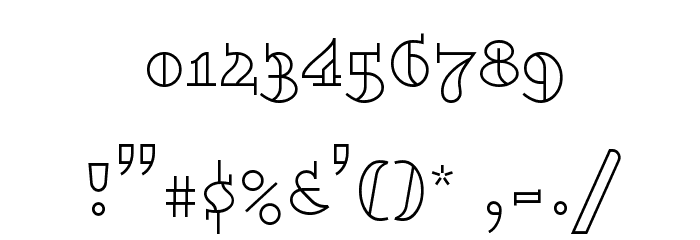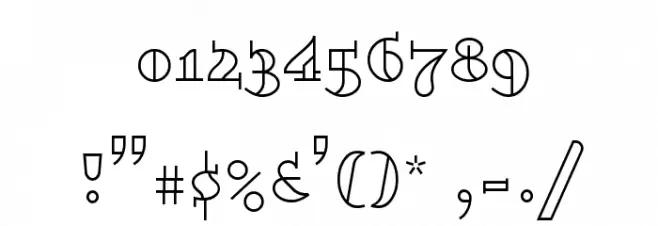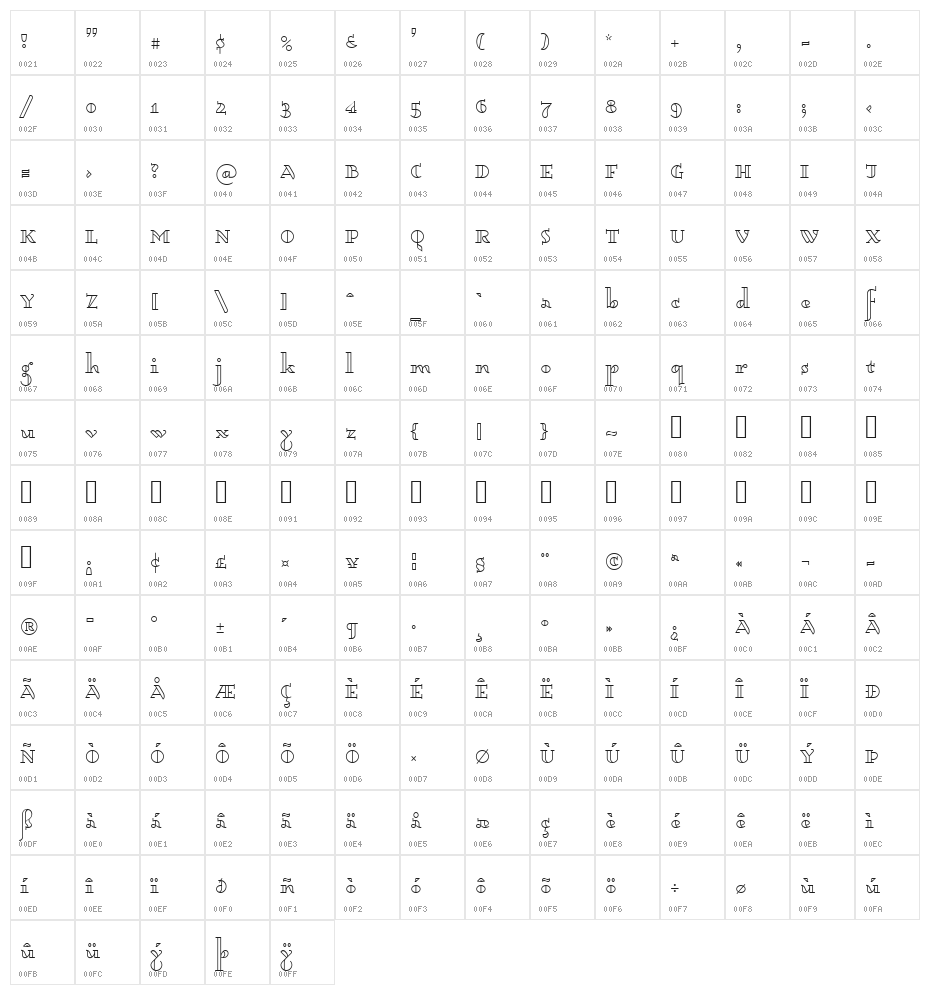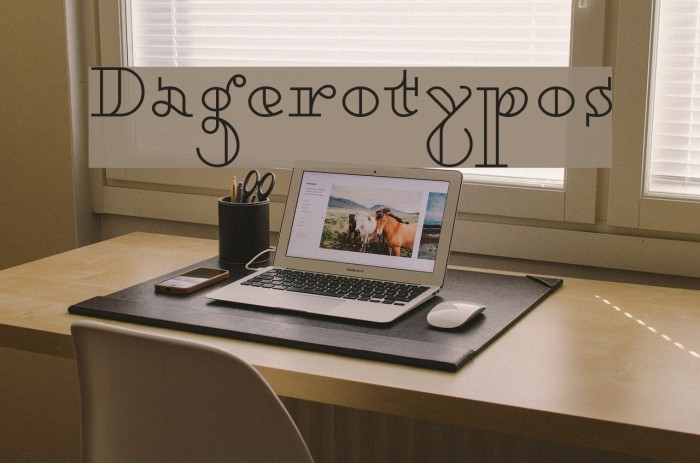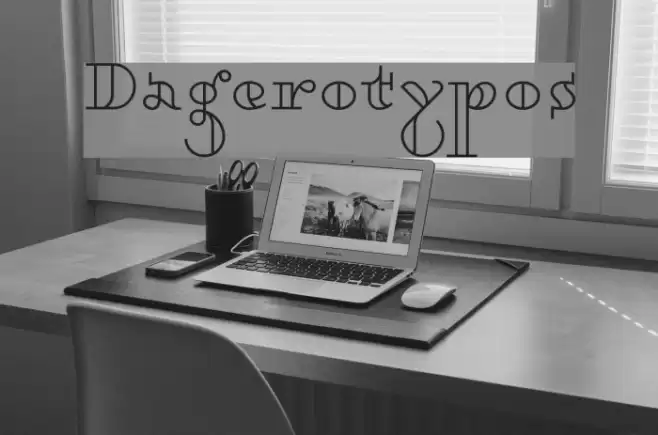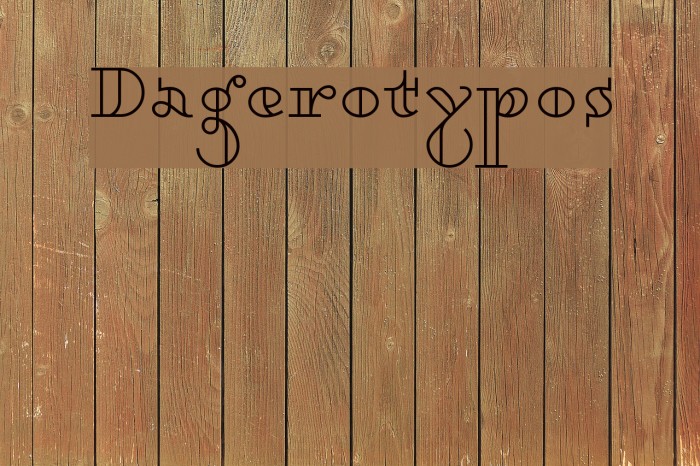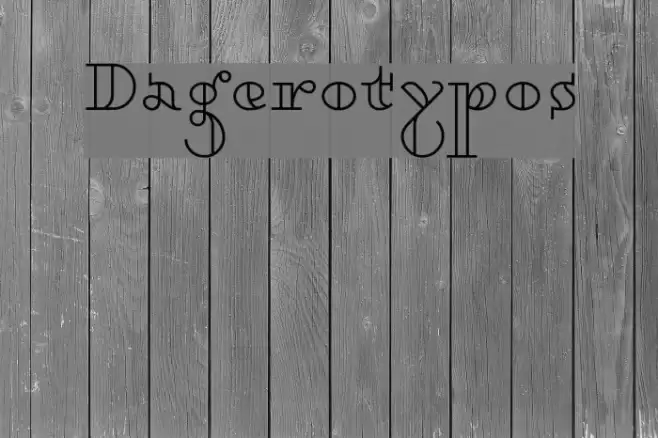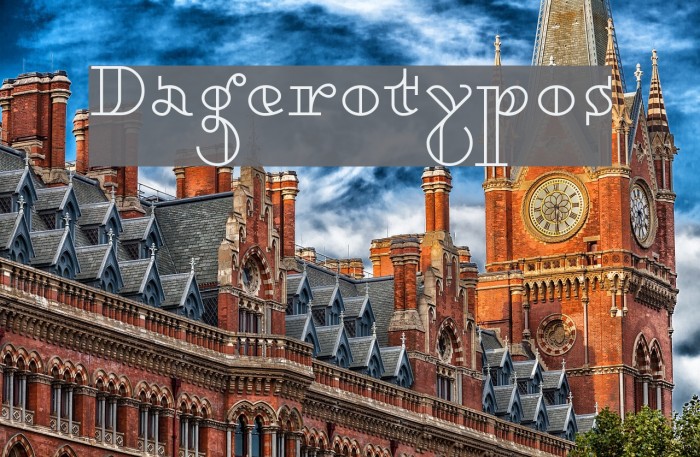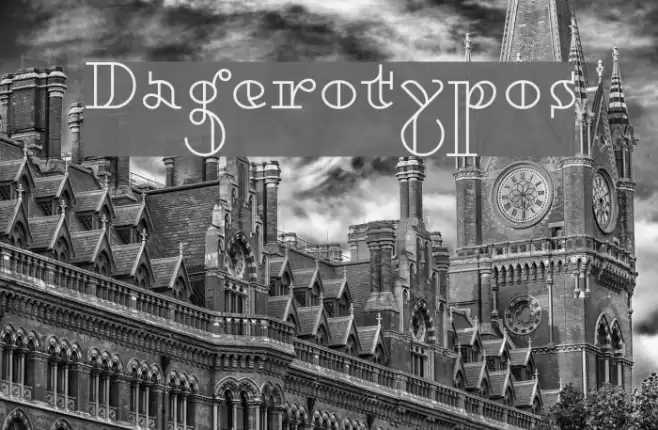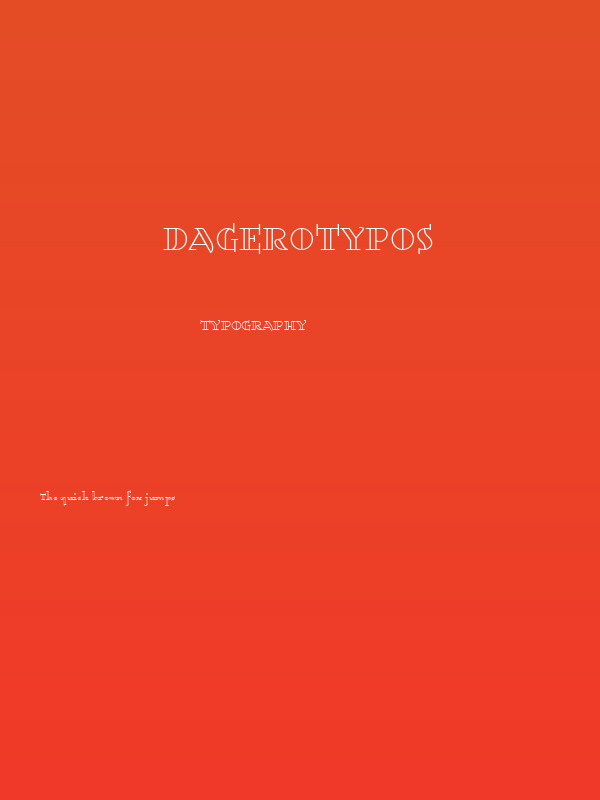
Dagerotypos Font
Dagerotypos Description
This font features a unique and artistic design with a blend of geometric and decorative elements. The uppercase letters are characterized by sharp angles and distinct serifs, giving them a bold and striking appearance. The lowercase letters maintain a similar style, with some characters incorporating elegant loops and curves, adding a touch of sophistication. The numerals are consistent with the overall theme, presenting a balanced mix of straight lines and curves. Special characters are creatively designed, maintaining the font's distinctive aesthetic. This font is ideal for projects that require a blend of modernity and classic elegance.